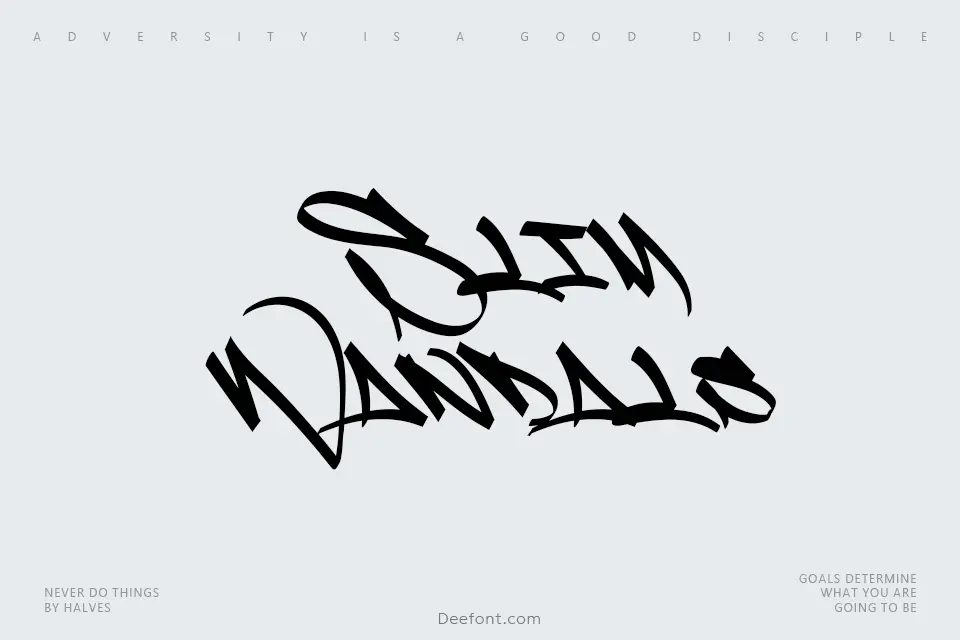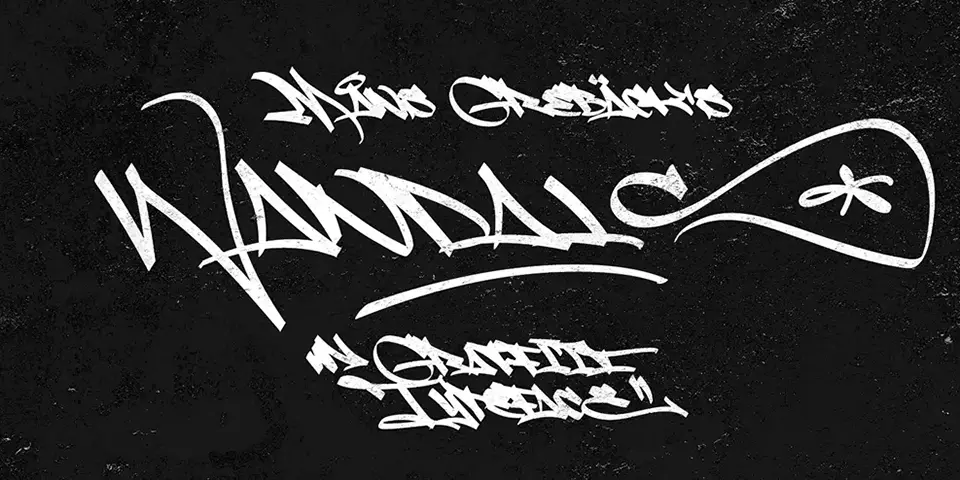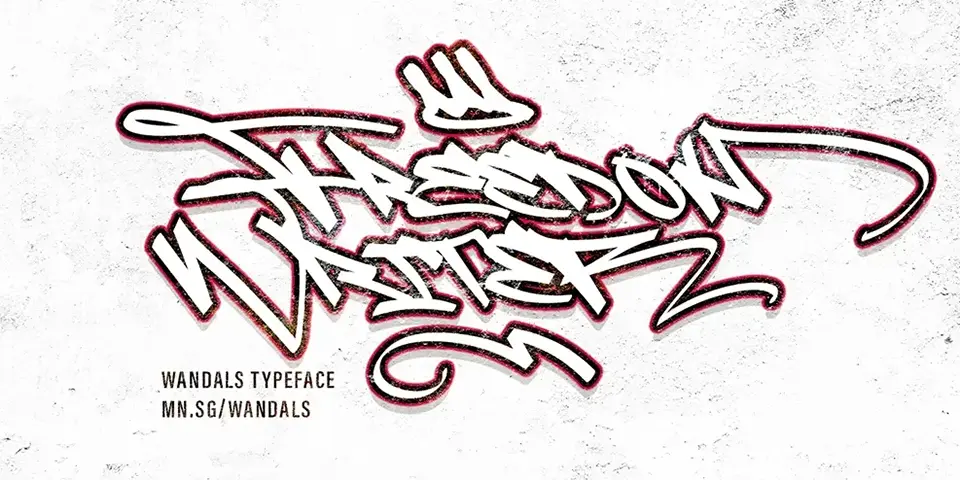
Slim Wandals Font
Slim Wandals is a professional graffiti typeface designed with multiple alternate alphabets to create a feeling of real handwriting. This script font comes in three weights and features contextual alternates, extended swashes, and comprehensive character coverage for European Latin-based languages. Perfect for creative projects, branding, logos, and dynamic typography, it includes bonus decorative symbols and special character functions for arrows and ornamental elements.